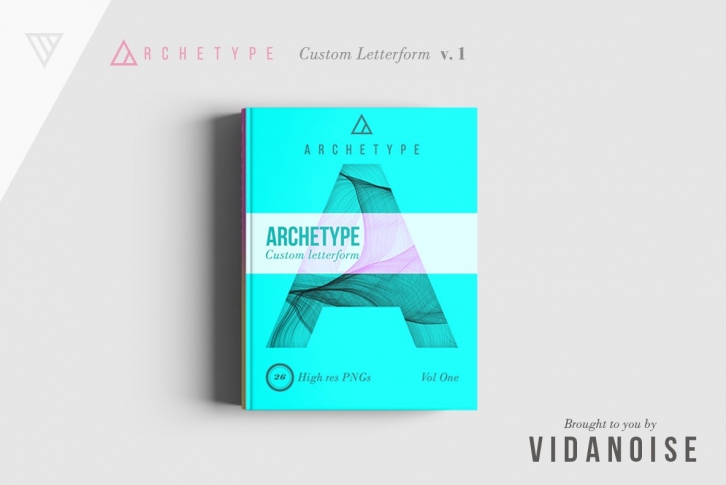
A generative and fluid custom letterform using classic geometric forms. Archetype Display pack includes 26 high res PNGs and an OTF Font File.
For use as display text, drop caps and background textures.